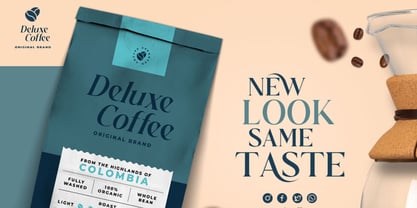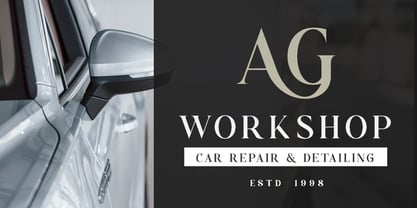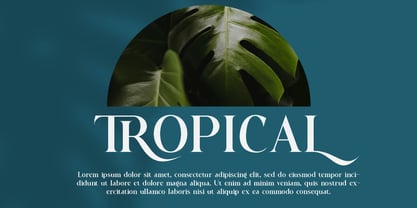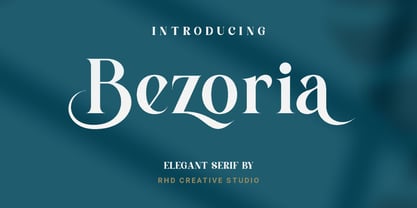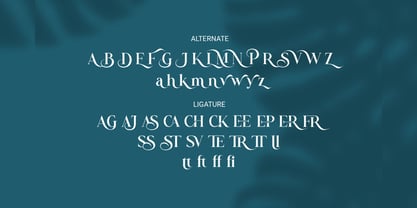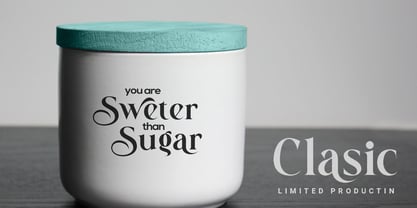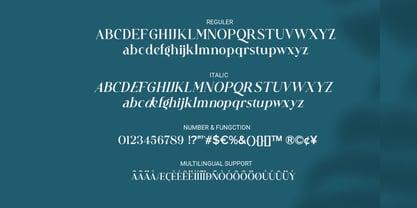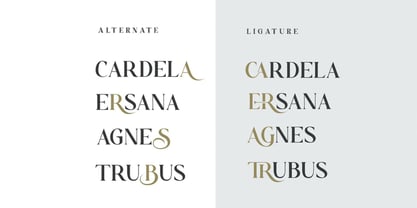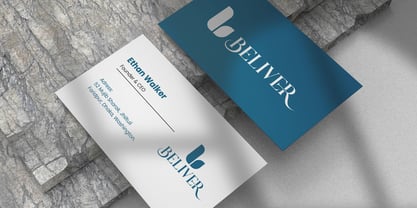
Bezoria
Hello everyone, I would like to introduce Bezoria - Elegant Serif Font. Bezoria - Elegant Serif Font with Handmade character. Bezoria - Elegant Serif Font, Modern font to make your design project stand out! Bezoria a perfectly choice for any creative endeavor, creating, modern, chic, lifestyle design such as logotype, title, cover, branding, invitations, wedding designs, display and magazine, social media posts, advertisements, printed quotes, product packaging, corporate brand, product designs, labels, photography, watermarks, special events and any other project with modern touch. Thank you for your purchase! Hope you enjoy with our font!